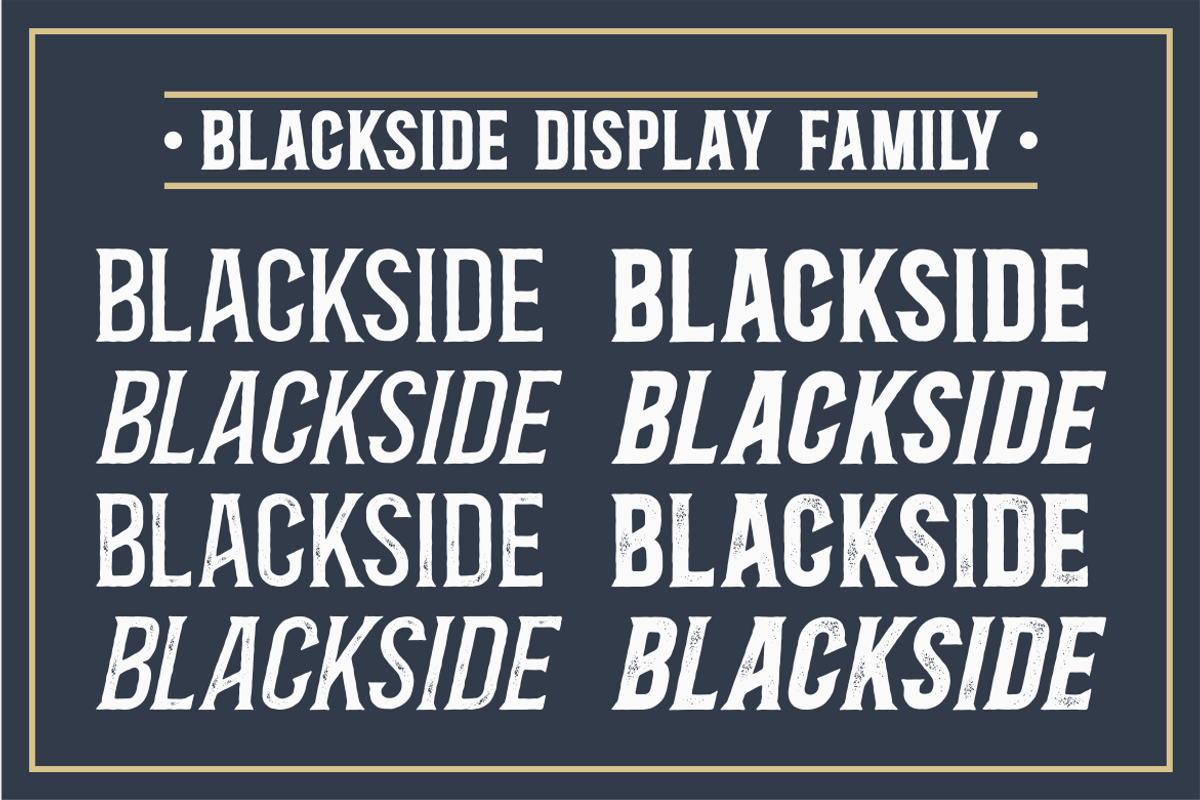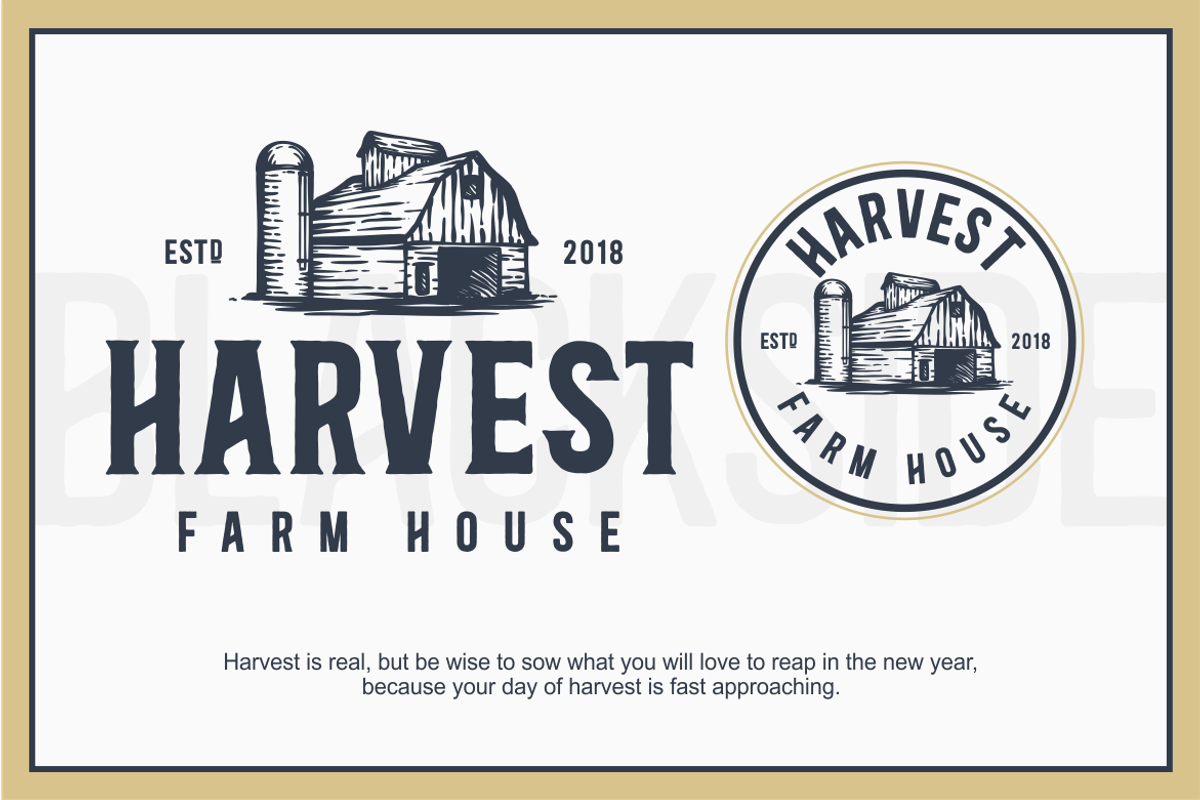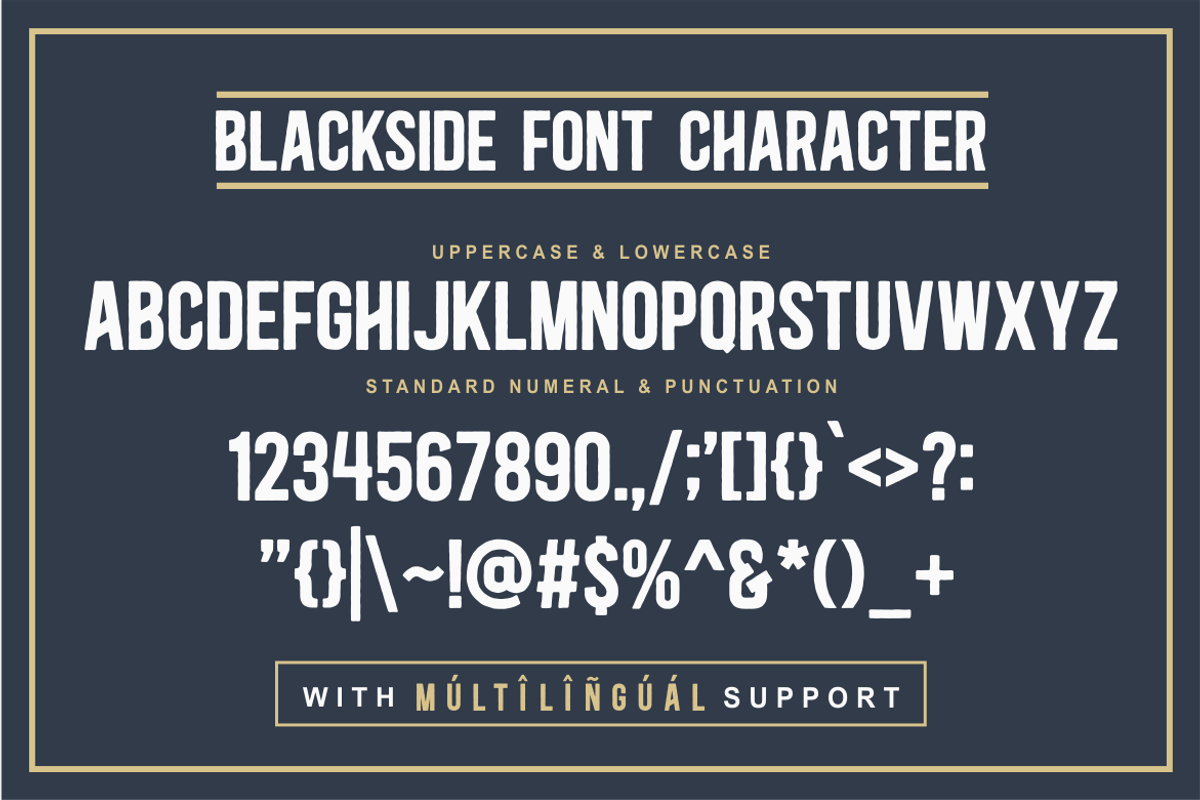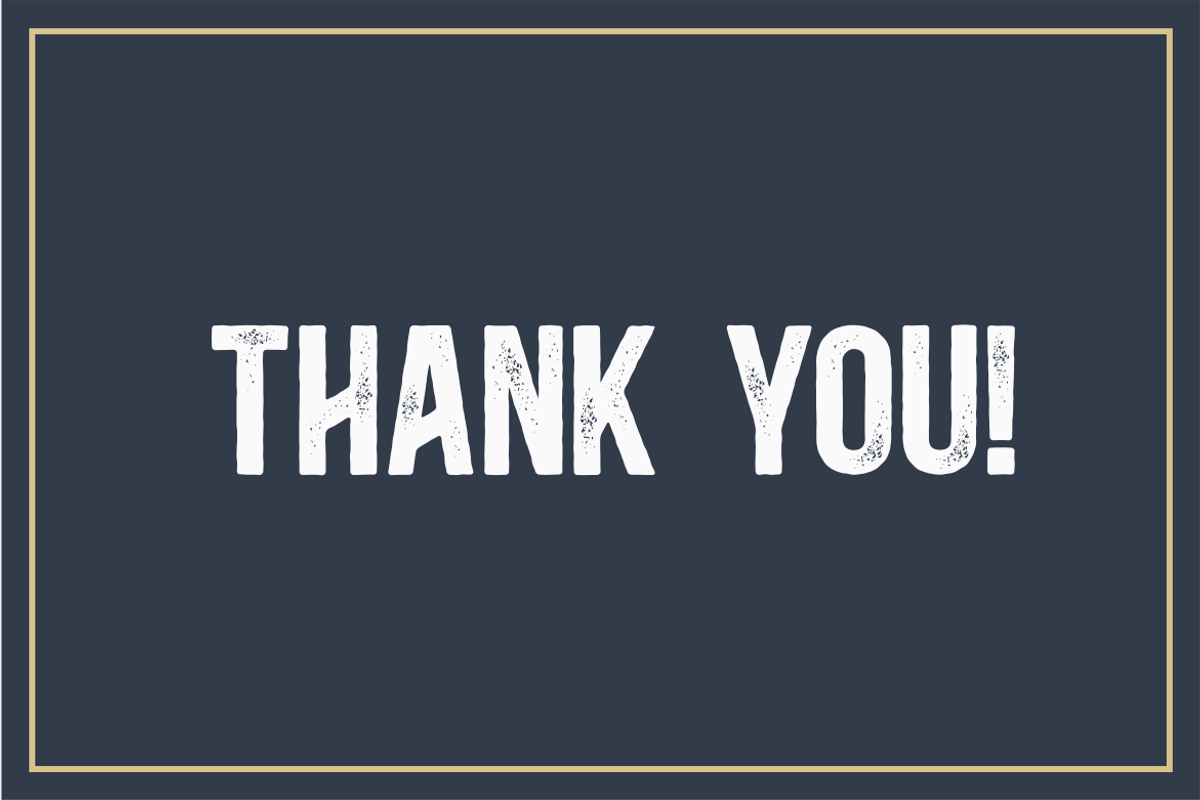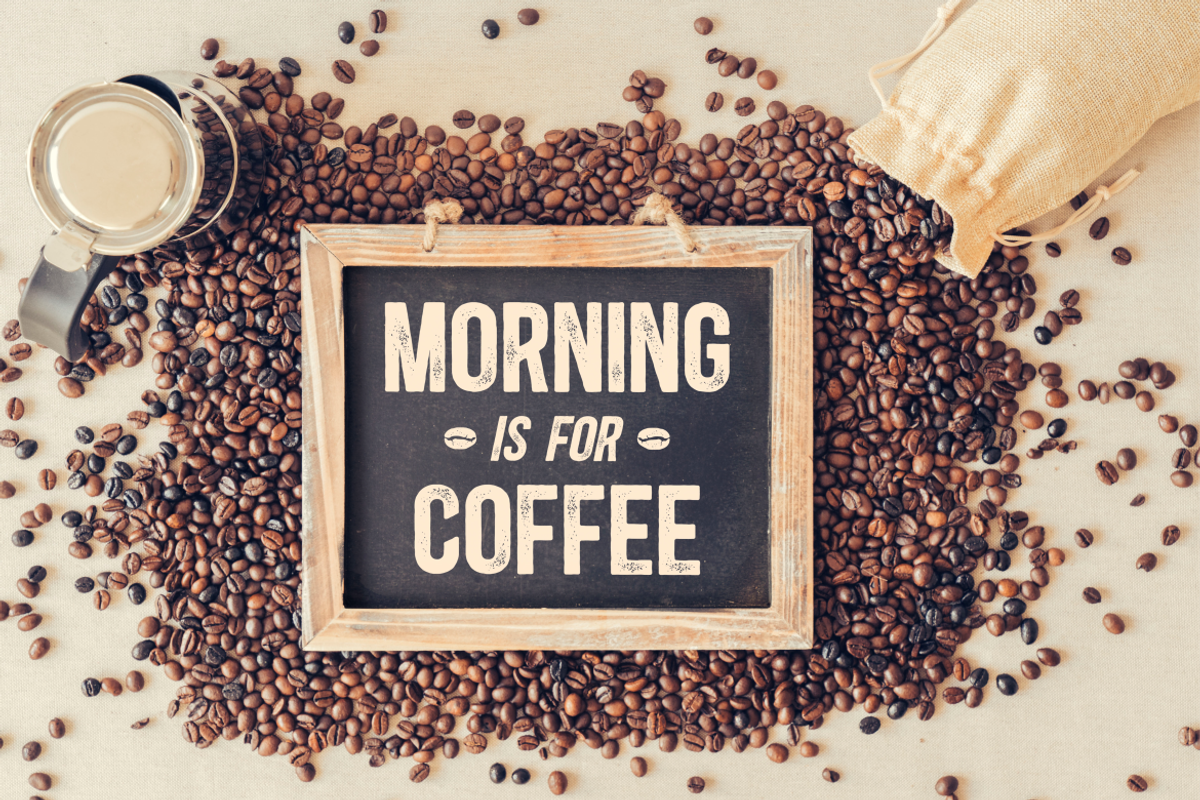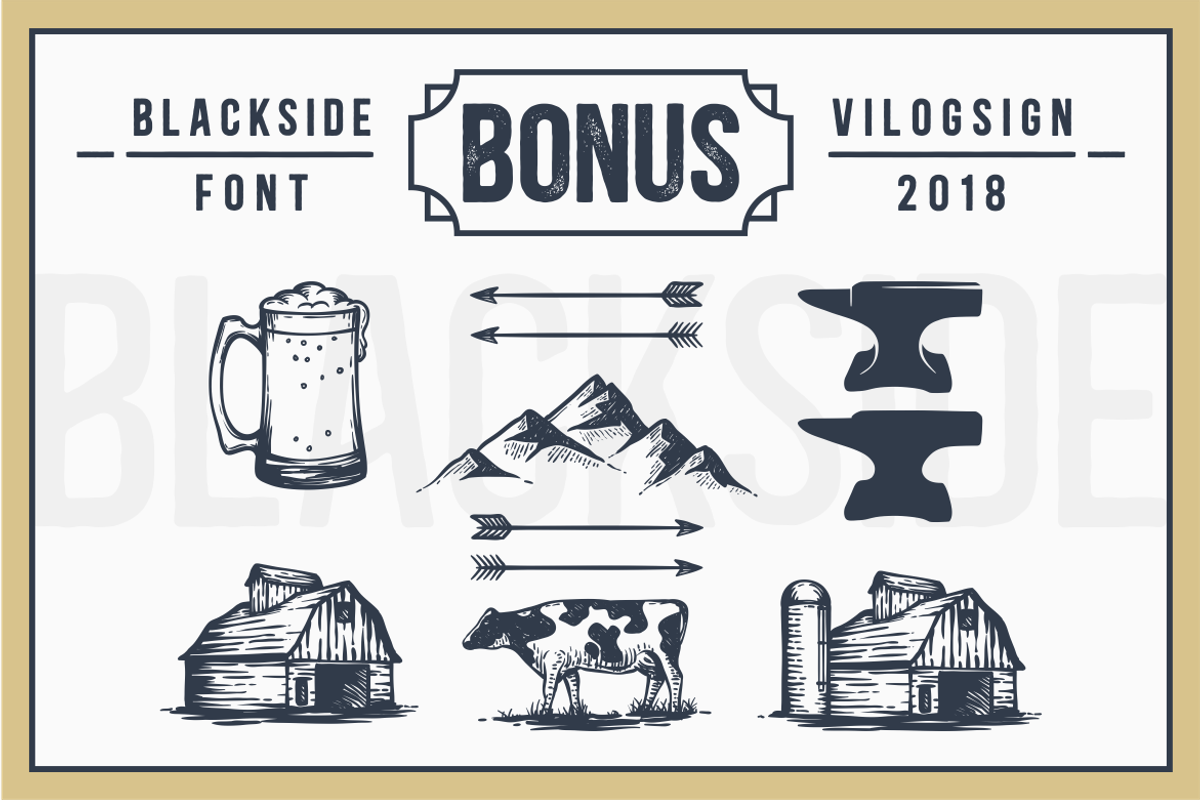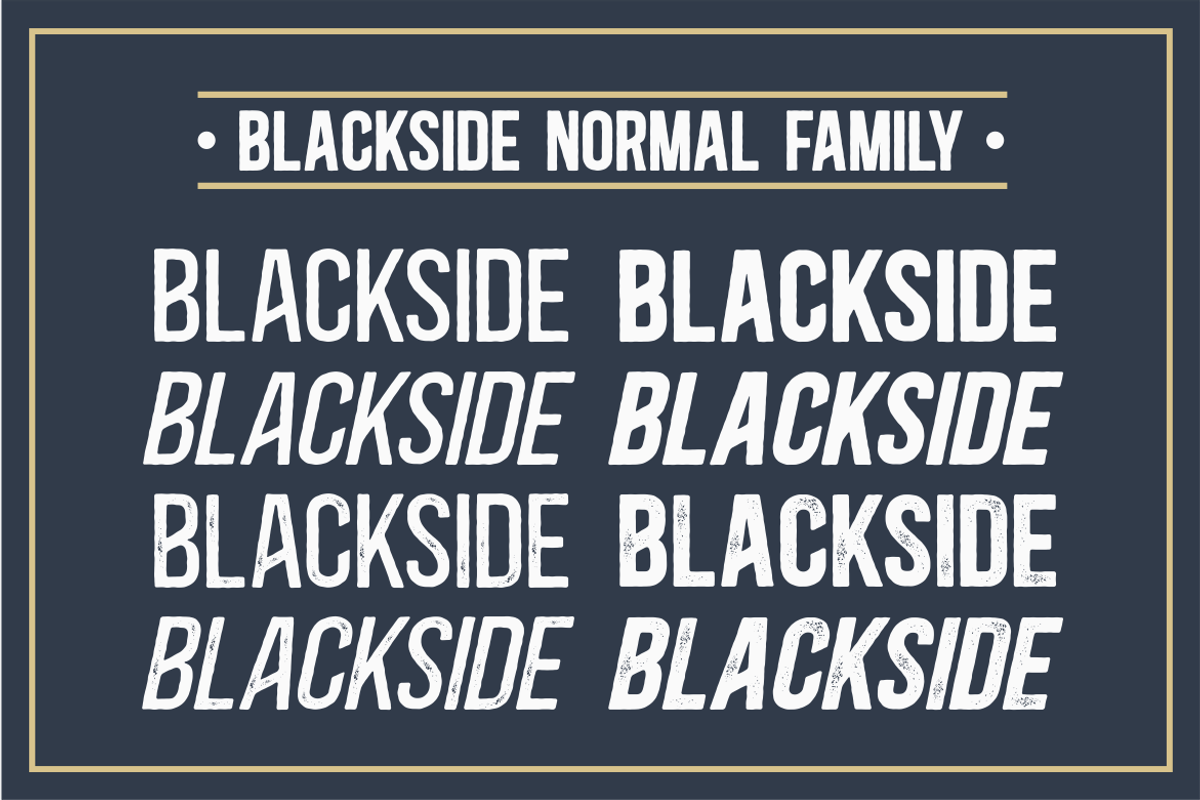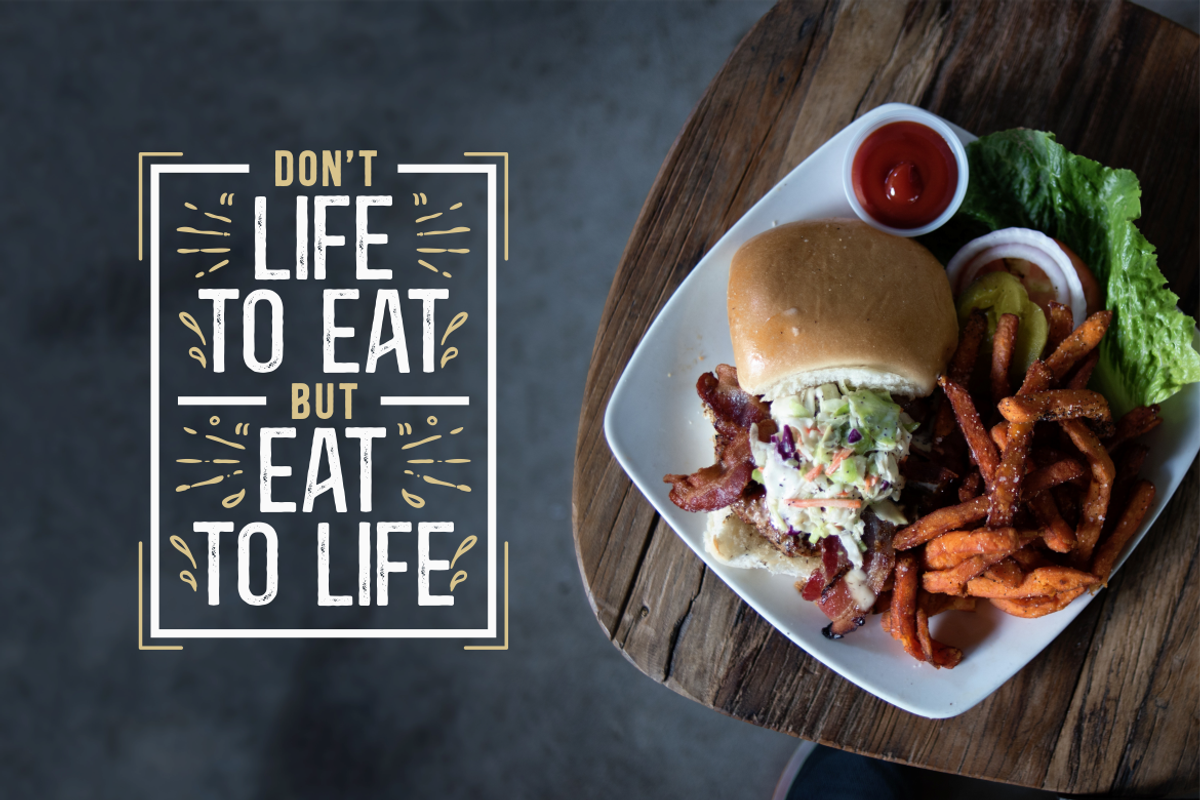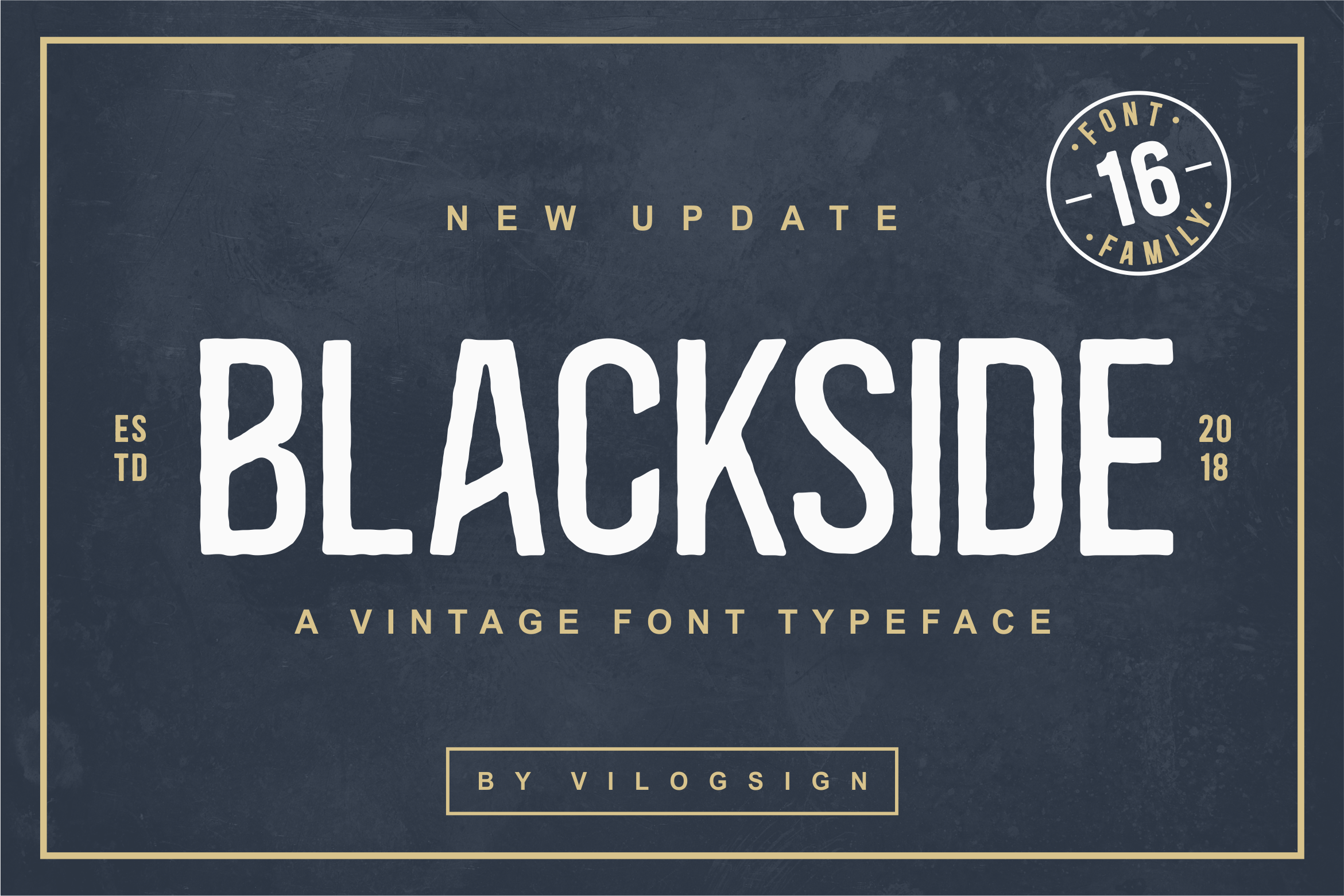
Blackside a vintage Font
Hi,,, Introducing "Blackside" a Vintage Typeface Font!!!
This font there are 16 characters. Made with very serious With Texture and effect grunge make to make this font look vintage So perfect for your need. This font is very good with multilingual support to complete your need. Very suitable to make a branding, Poster, magazine, greeting card, fashion, quotes, logo, packaging, and other.